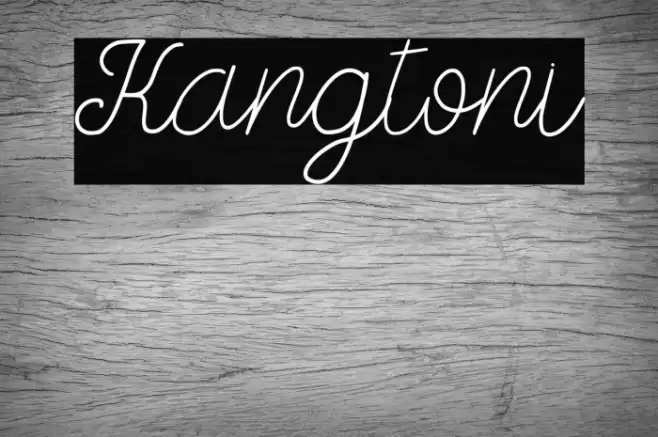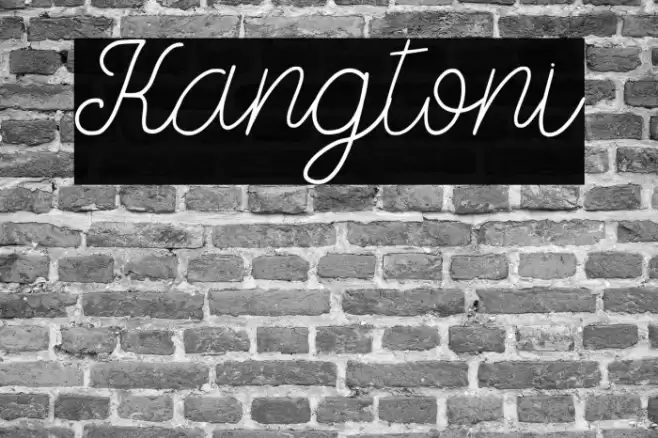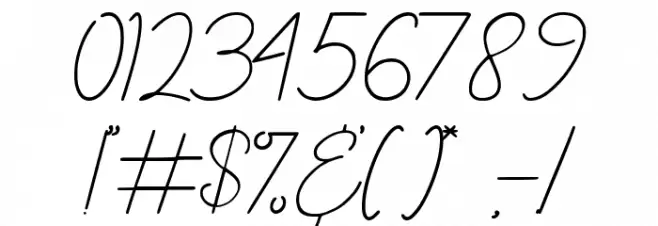
Kangtoni Font
Kangtoni Description
This elegant script font features a fluid, cursive style that mimics natural handwriting. The characters are connected, creating a seamless flow that is both sophisticated and approachable. The uppercase letters are slightly more ornate, with gentle loops and curves, while the lowercase letters maintain a consistent rhythm and balance. The numerals and special characters are designed to complement the alphabet, maintaining the same graceful aesthetic. This font is perfect for projects that require a personal touch, such as invitations, greeting cards, or branding materials. Its delicate lines and smooth transitions make it ideal for conveying elegance and warmth.
A fluid, cursive script font with elegant, connected characters from Uncategorized fonts.
- Proposed Projects: Ideal for invitations, greeting cards, branding, and any project requiring a personal, elegant touch.
- Character Spacing: Tight
- Overall Style: Elegant, Handwritten
- Use Case: Logos, Invitations, Greeting Cards